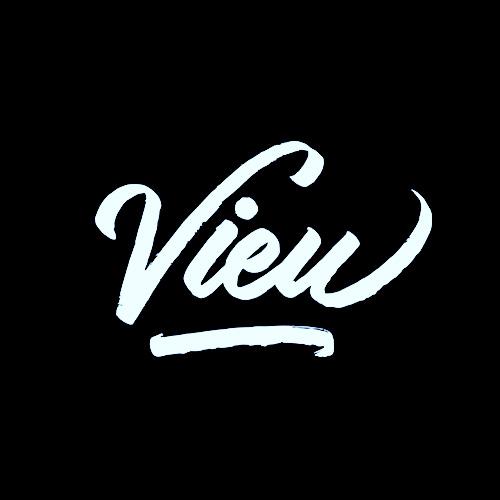
Segistay Font Description
Segistay maintains its classy calligraphic influences while feeling contemporary and fresh. It looks stunning on wedding invitations, thank you cards, quotes, greeting cards, logos, business cards and every other design which needs a handwritten touch. This font is PUA encoded which means you can access all of the glyphs and swashes with ease! It features a varying baseline, smooth lines, gorgeous glyphs and stunning alternates.